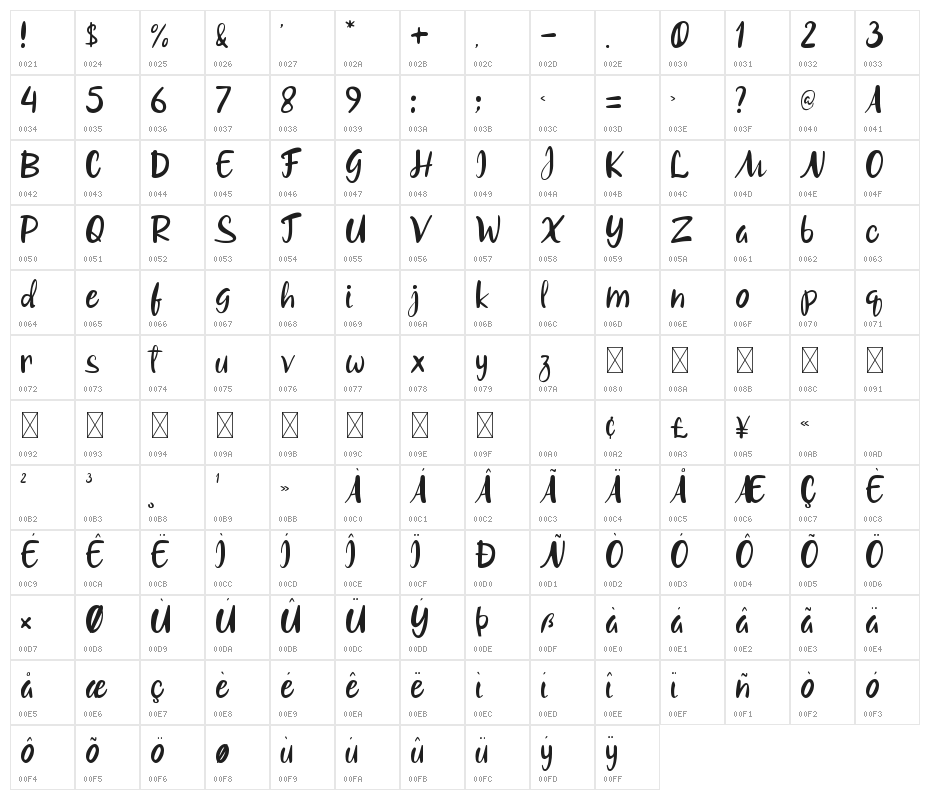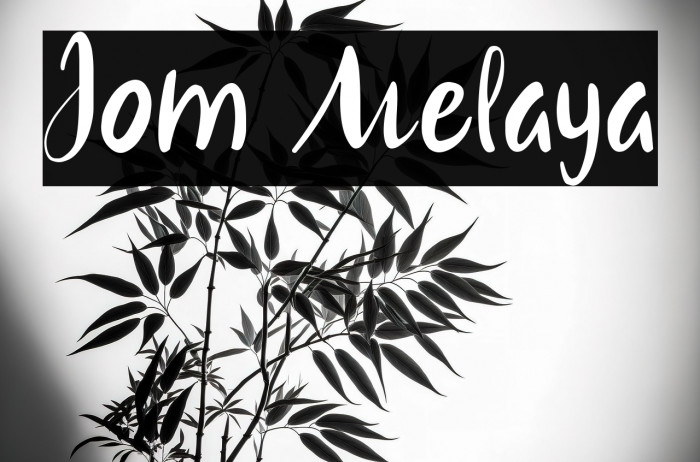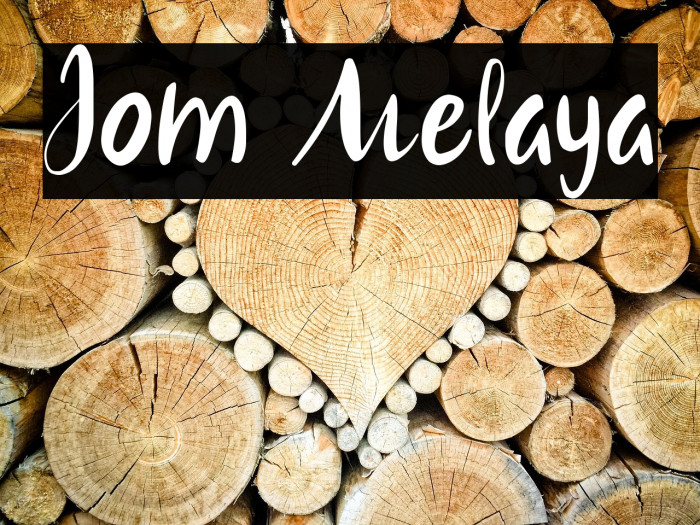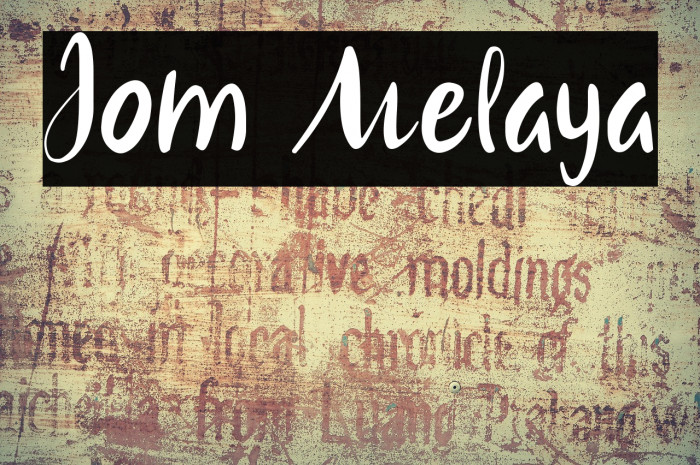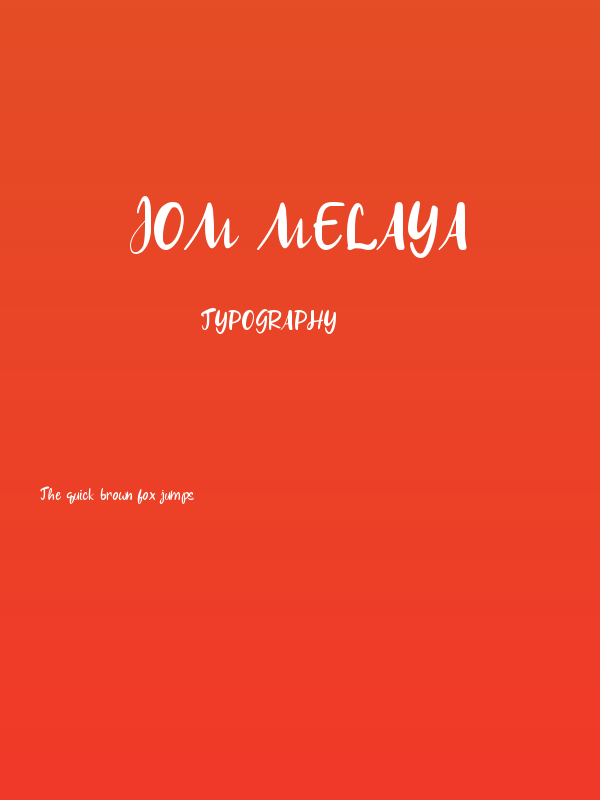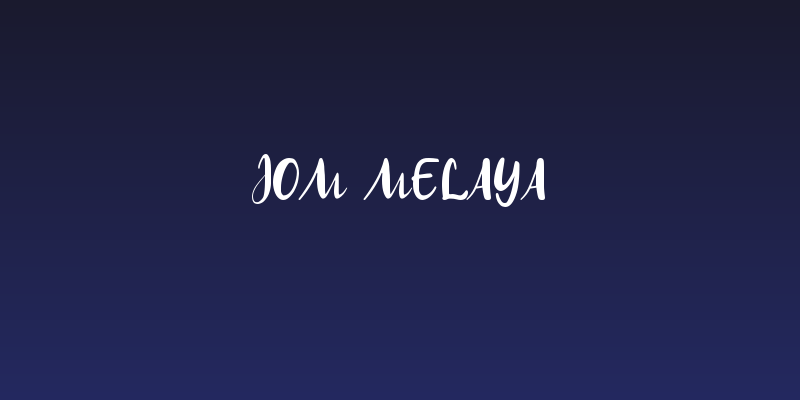
Jom Melaya Font
Jom Melaya Description
This font features a lively and expressive style, characterized by its fluid and dynamic strokes. The uppercase letters are bold and slightly slanted, giving a sense of movement and energy. The lowercase letters maintain a consistent flow, with some characters featuring playful loops and curves. The numbers are rounded and maintain the same energetic style, making them stand out. Special characters are designed to complement the overall aesthetic, with a mix of bold and delicate elements. This font is perfect for projects that require a personal and artistic touch, offering a unique blend of readability and flair.
| Use Case | Logos, Headlines, Artistic designs |
| Proposed Projects | Ideal for greeting cards, invitations, branding, and artistic posters. |